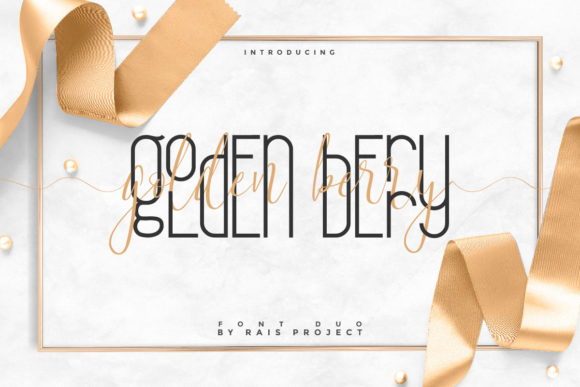
Behold, the Golden Berry Font: A Tryst of Elegance and Festivity
Journey into the realm of typography, where Golden Berry blooms as a font duo woven with grace and gaiety. As a display font family, Golden Berry stands tall on the stage of design, beckoning you to embrace its dual nature for a symphony of creative expression.
Golden Berry Regular, with its tall and slender stature, exudes the essence of sophistication, while Golden Berry Slant, with its playful angle, dances across the page with a touch of whimsy. Together, they form a harmonious blend that elevates your designs to new heights.
Picture yourself crafting an enchanting wedding invitation adorned with Golden Berry's graceful curves. Let the font's sweeping strokes add a touch of elegance to the momentous occasion. Its carefully crafted glyphs and swashes unfold like a story, guiding your guests through the journey of love and celebration.
Or, imagine a vibrant party flyer splashed with the colors of Golden Berry's cheerfulness. The font's joyful slant dances across the page, inviting friends and family to partake in an evening filled with laughter, music, and merriments. Its friendly and approachable nature sets the tone for an unforgettable gathering.
Golden Berry is more than just a font; it's a gateway to a world of endless creative possibilities. Whether you're a seasoned designer or just starting your artistic adventure, Golden Berry's versatility is your muse. Whether you seek elegance, whimsy, or a fusion of both, this font duo will guide you to design masterpieces that captivate and inspire.
With Golden Berry at your fingertips, the world of design becomes your playground. Let your imagination roam free as you create invitations, posters, logos, social media graphics, and endless other projects that shimmer with style and originality.
So, why settle for ordinary when you can embrace the extraordinary? Immerse yourself in the beauty of Golden Berry Font, and let your creativity blossom like a thousand golden blooms.